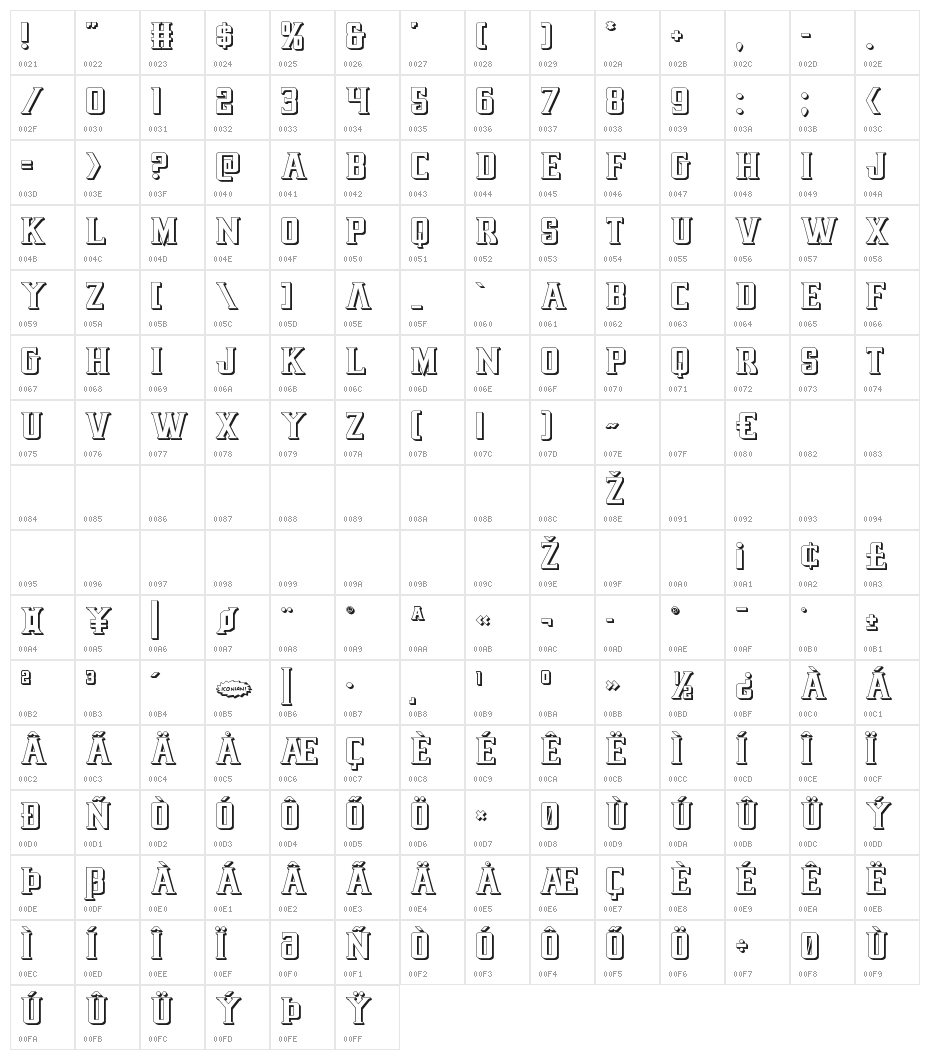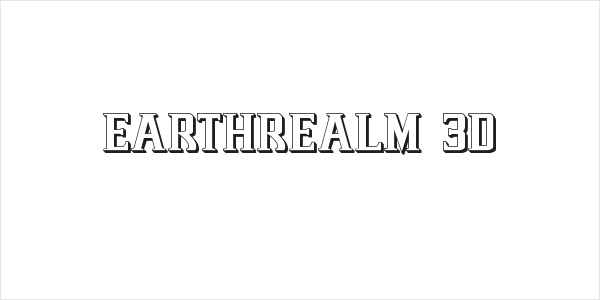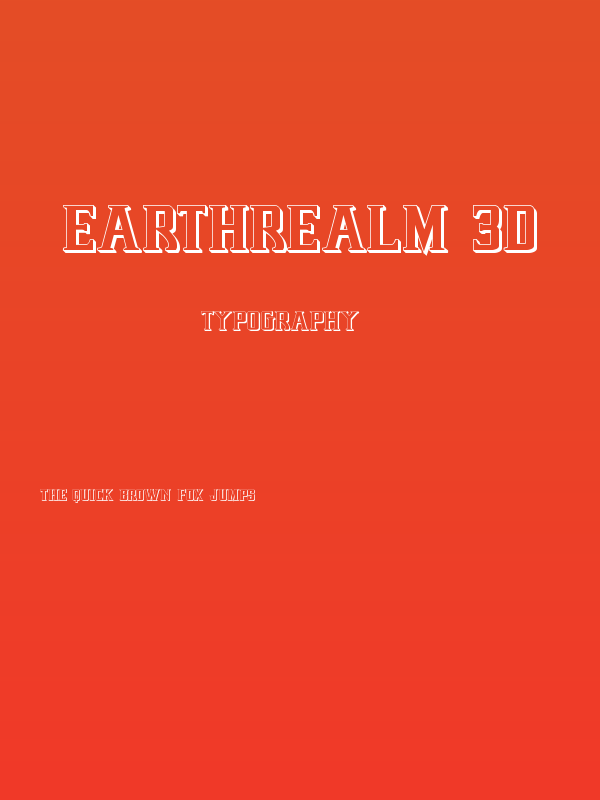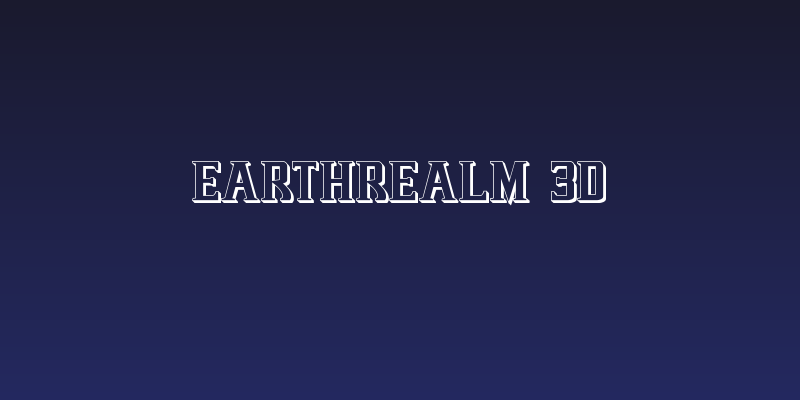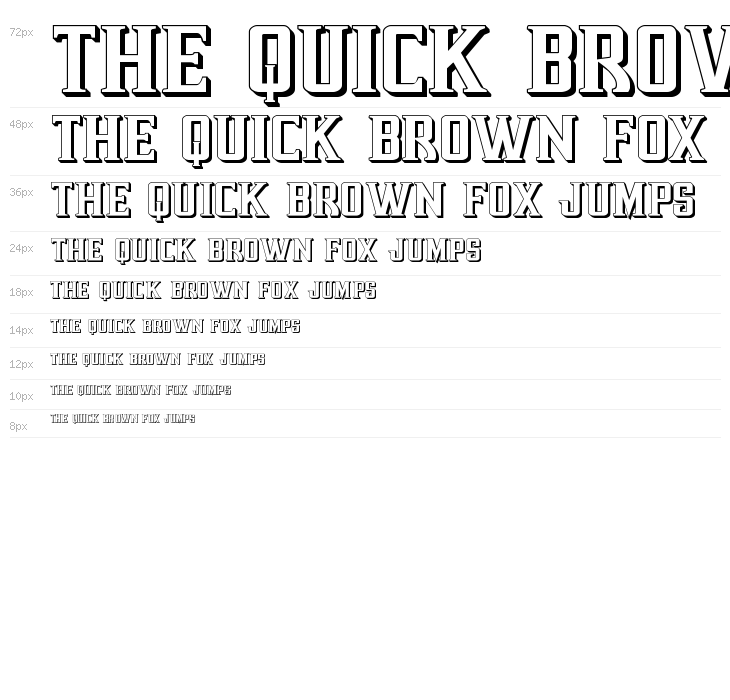
Earthrealm 3D Font
Earthrealm 3D Description
This font features a bold, three-dimensional appearance with a strong, impactful presence. The characters are outlined, creating a shadow effect that gives them depth and a sense of solidity. The uppercase letters are uniform in height, with sharp angles and clean lines that convey a sense of strength and stability. The numbers and special characters maintain this bold, outlined style, ensuring consistency across all glyphs. This font is ideal for making a statement, with its eye-catching design and robust structure.
| Proposed Projects | Ideal for posters, video game titles, logos, and any project requiring a bold, attention-grabbing font. |